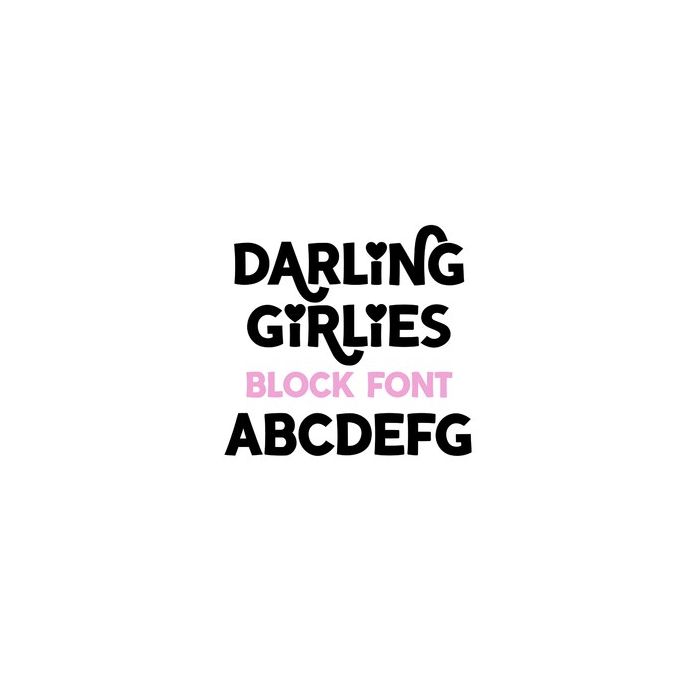
BFC Darling Girlies Block Swooped Valentine's Day Font
Darling Girlies is a block display Valentine's Day font with swooped characters. Find them using your glyph panel or character map.